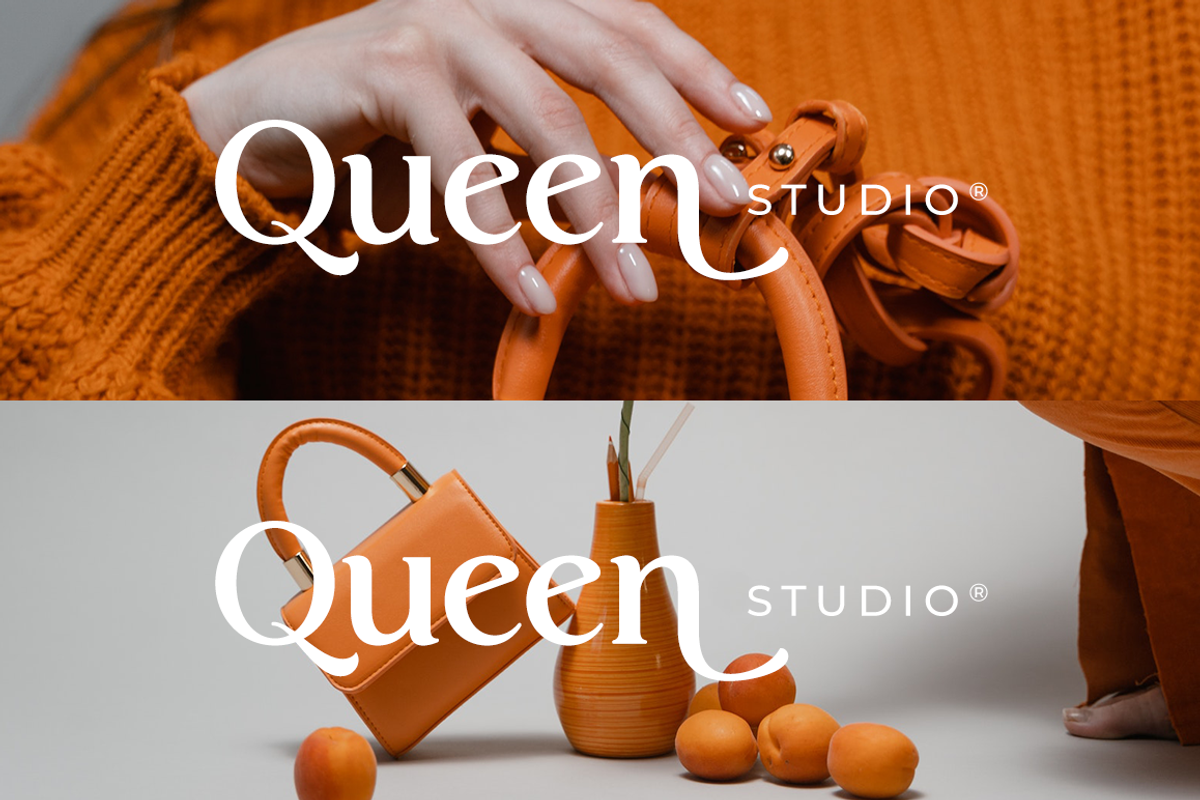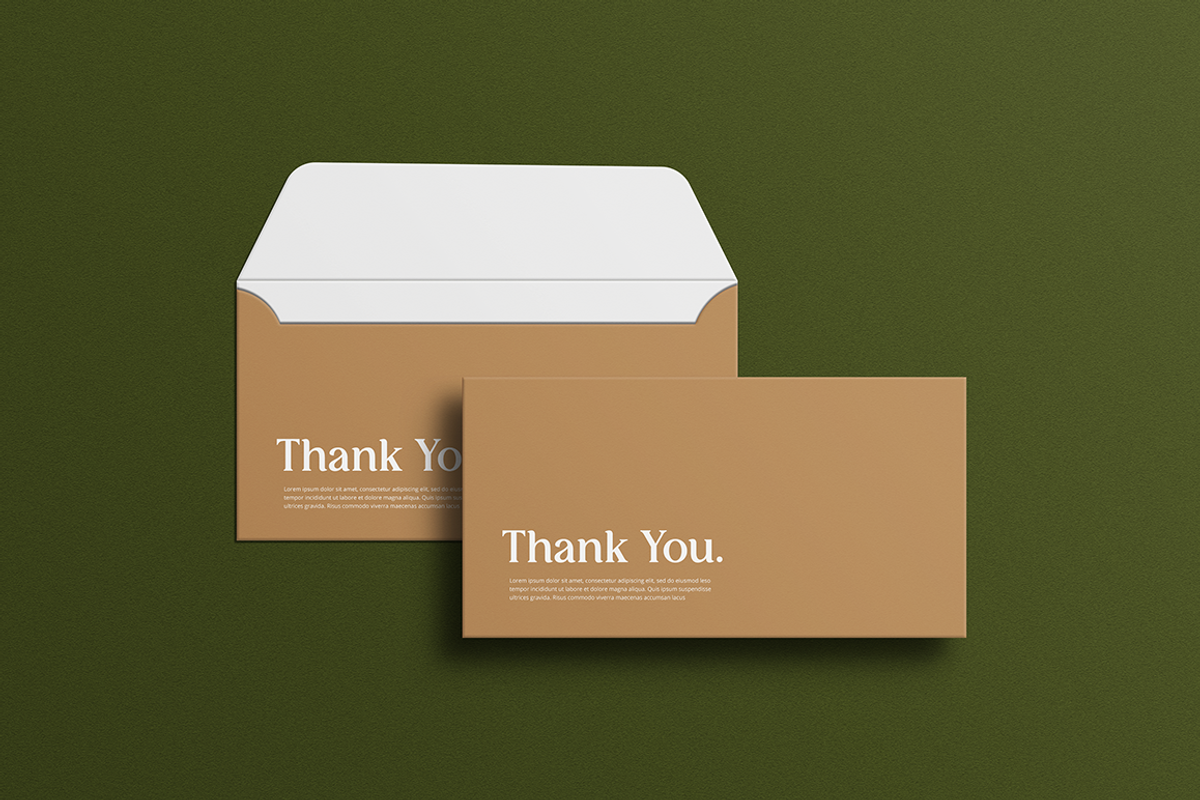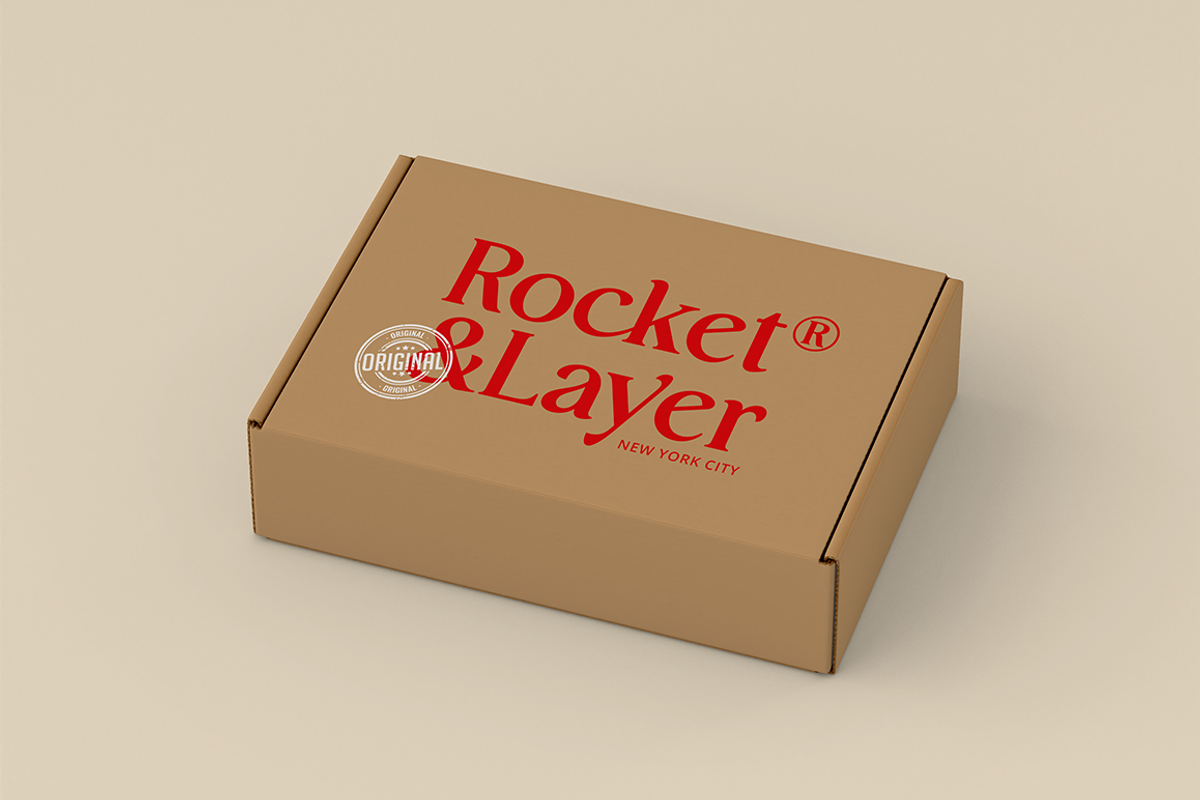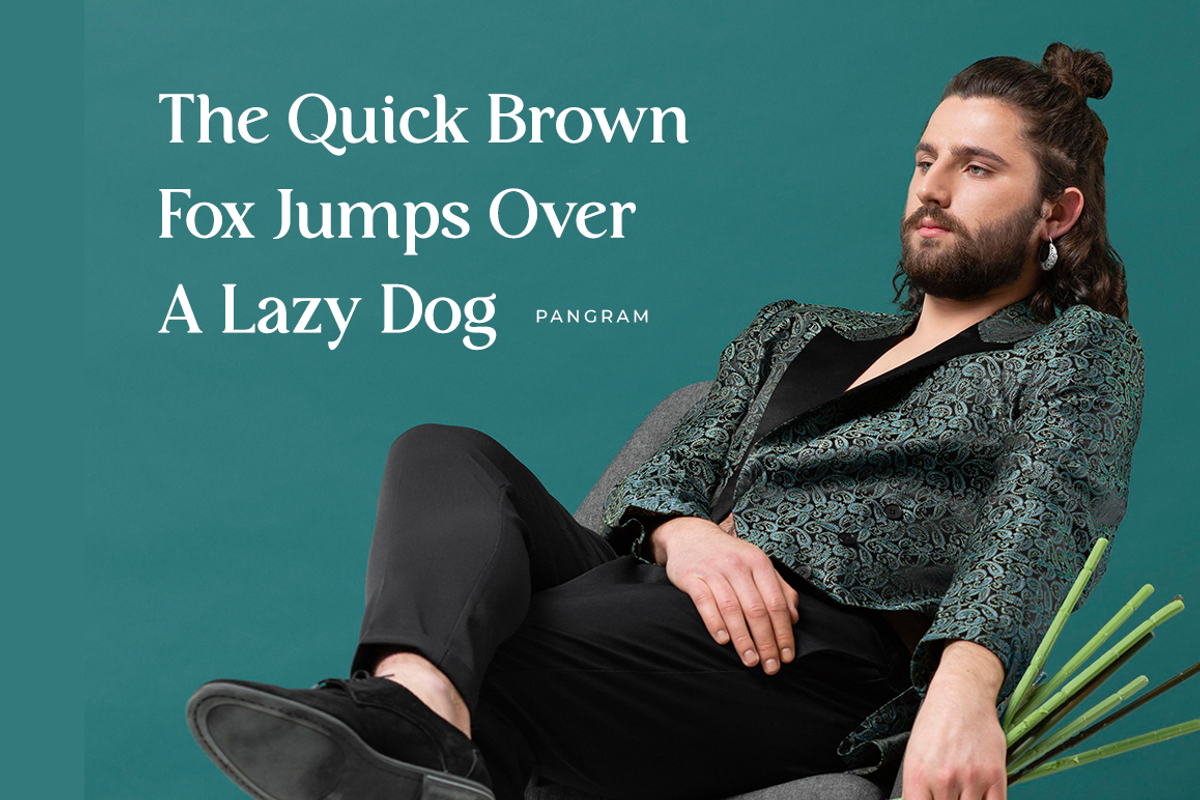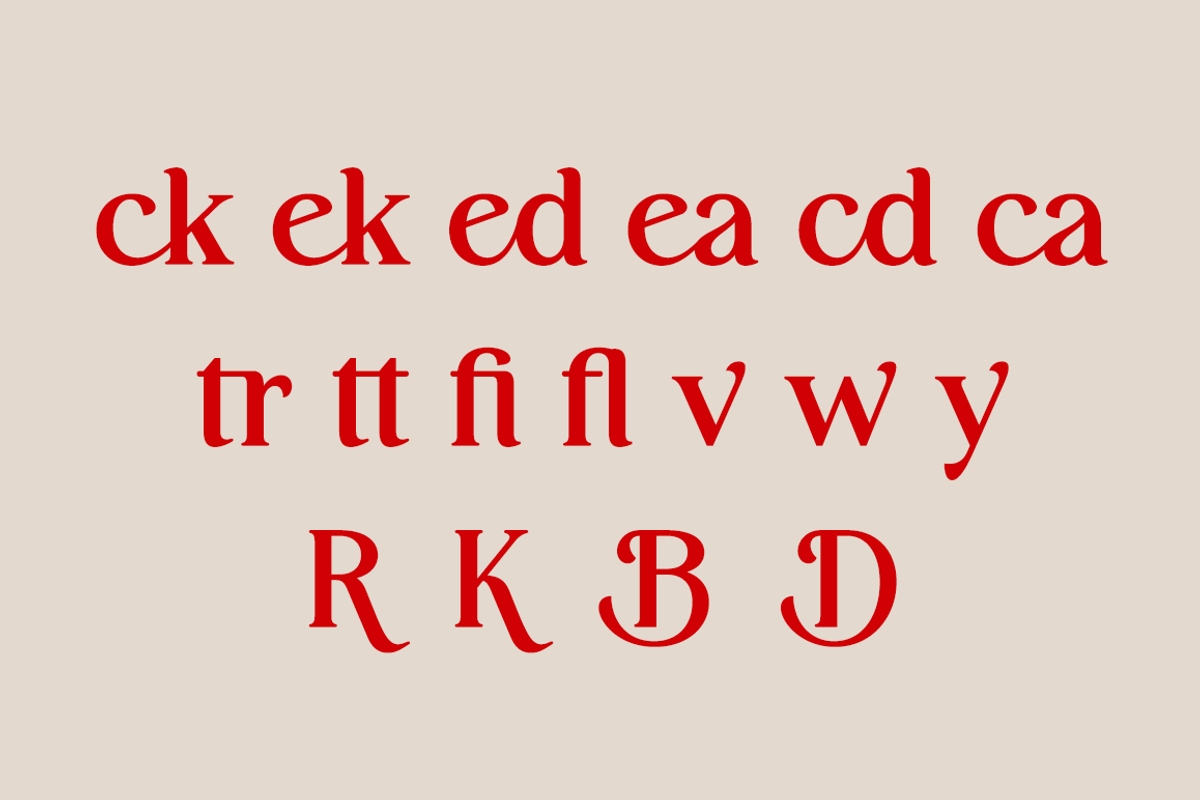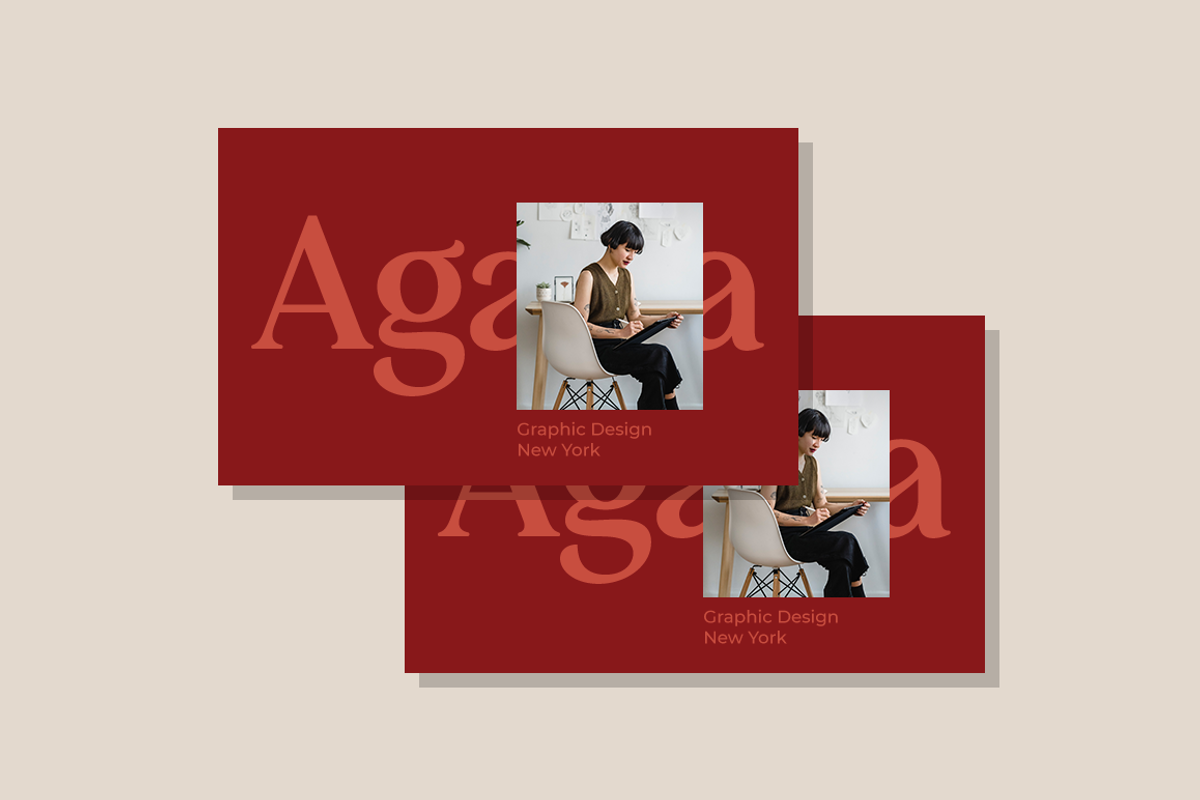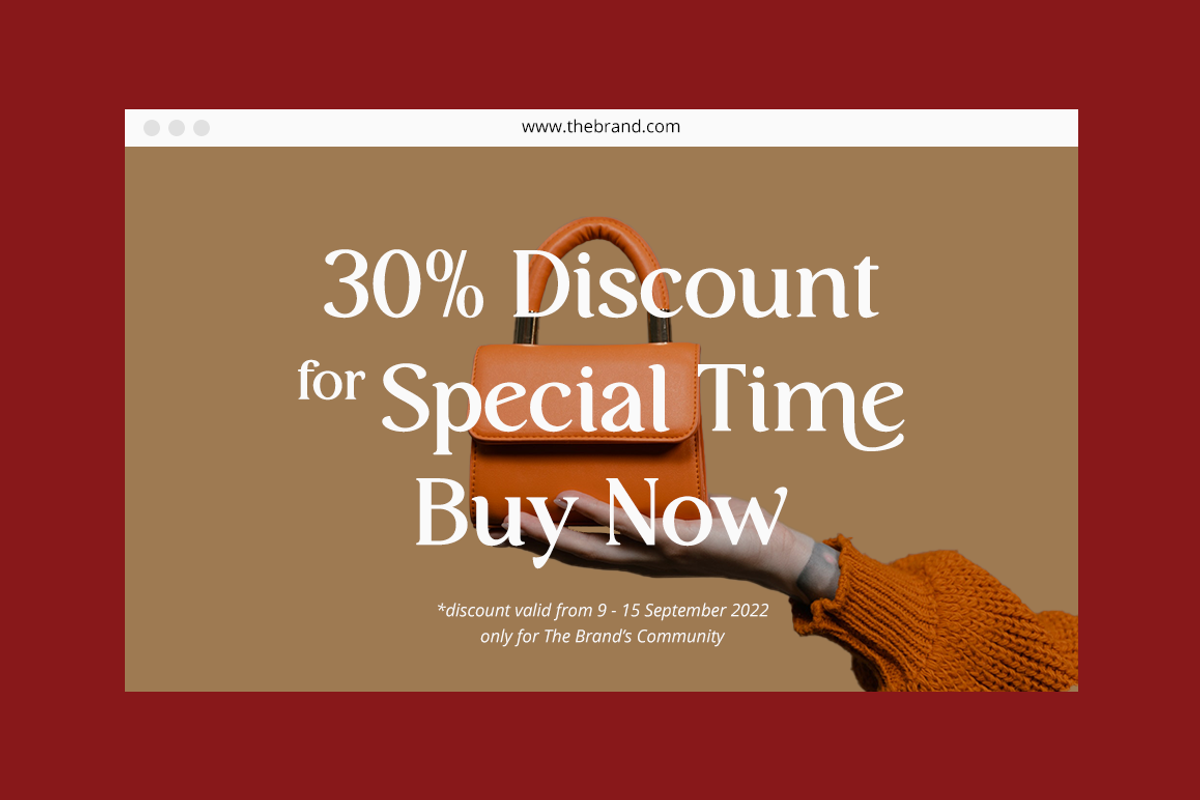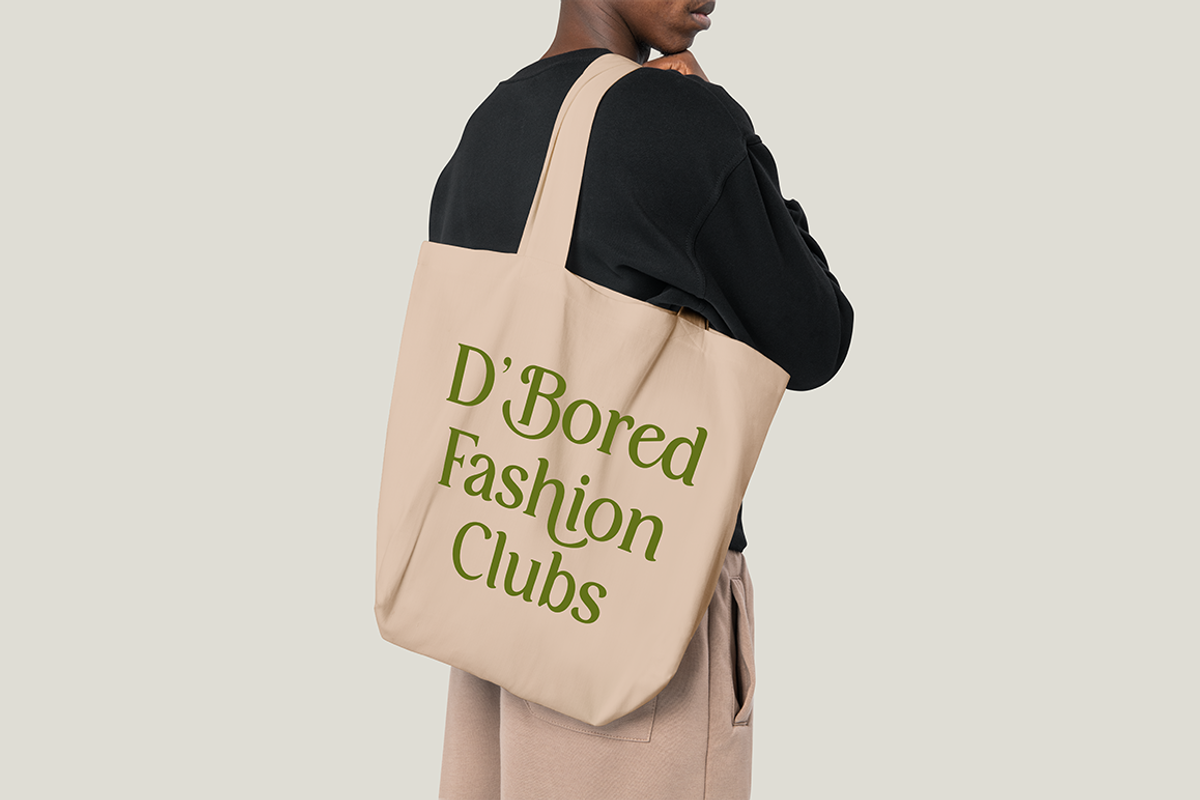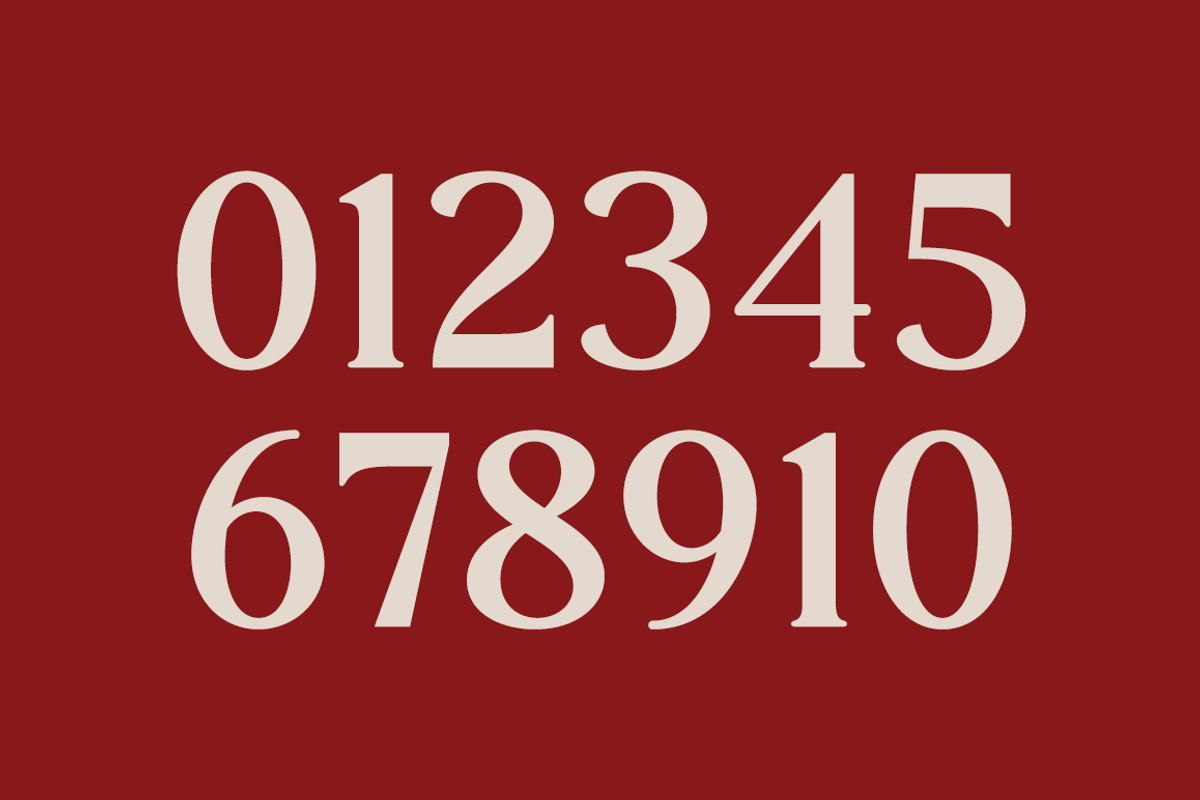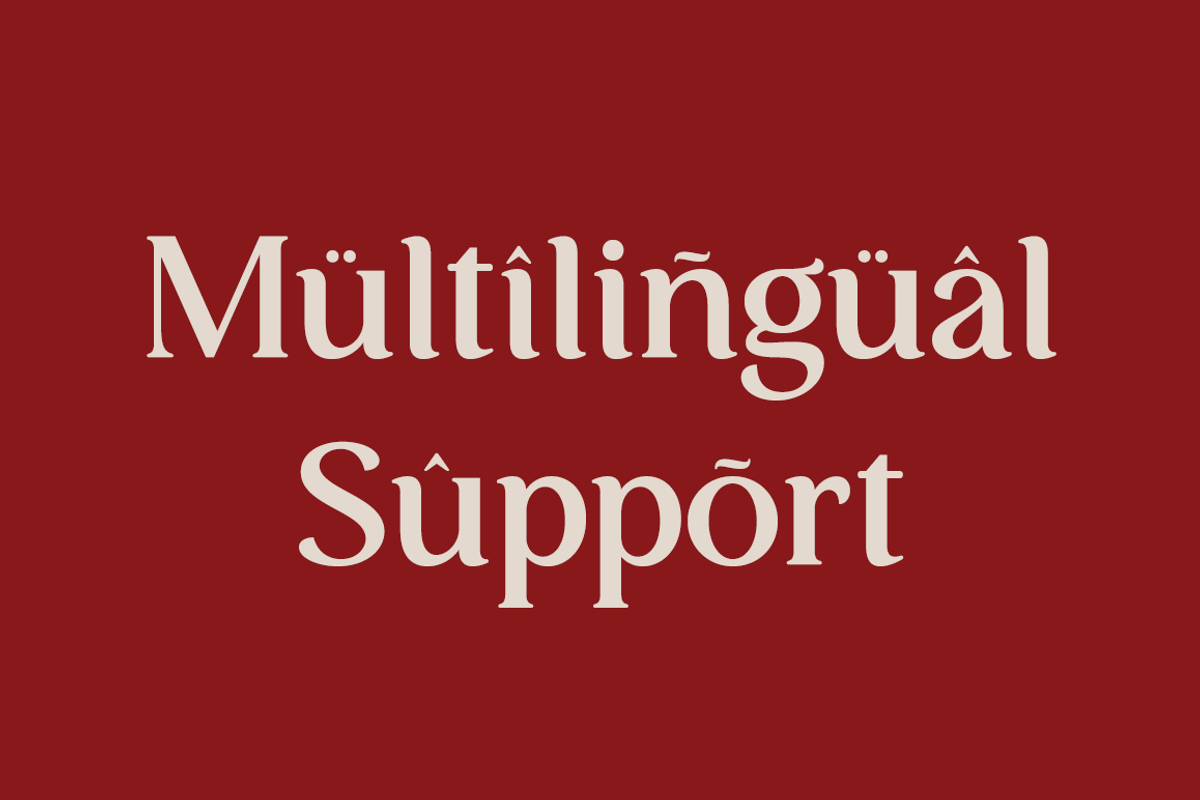
Dramtical The Display
Dramtical The Display is an elegant, thin lettered and distinct serif font. Suitable to a wide variety of designs due to its neat and clean style, this font has the potential to become your favorite go-to font, no matter the occasion!